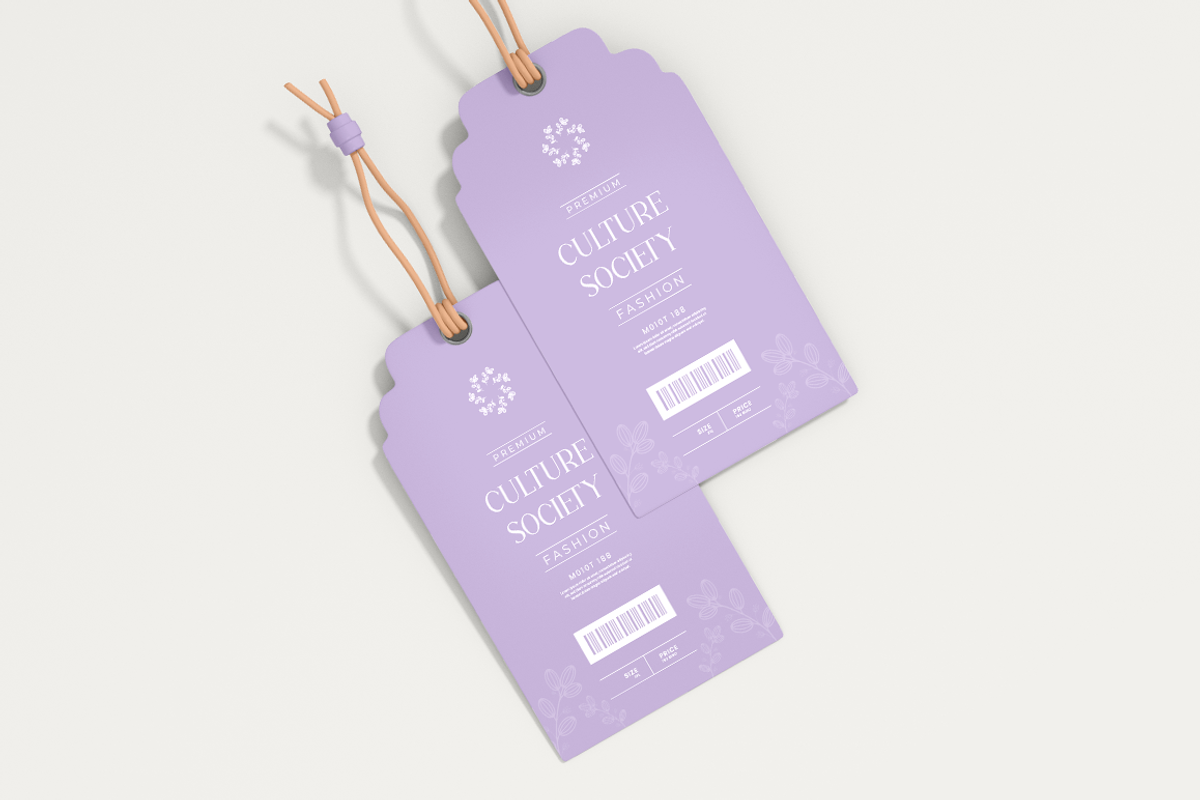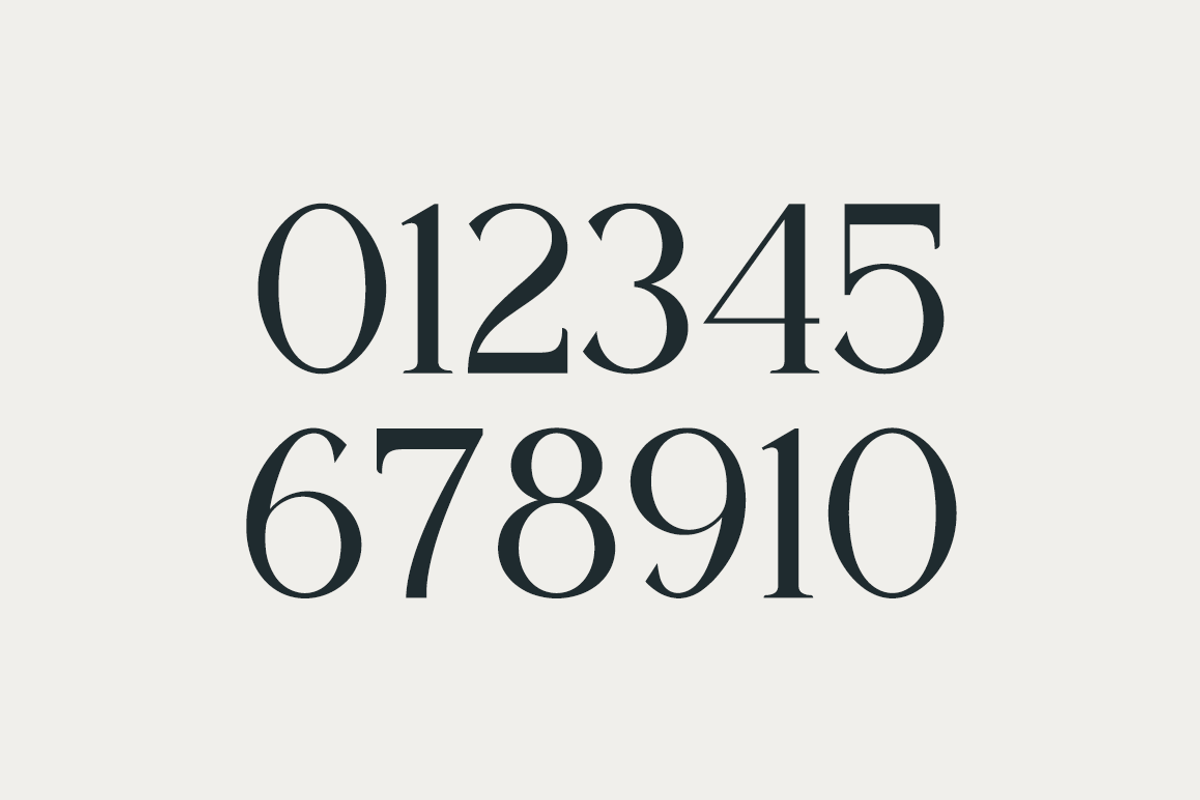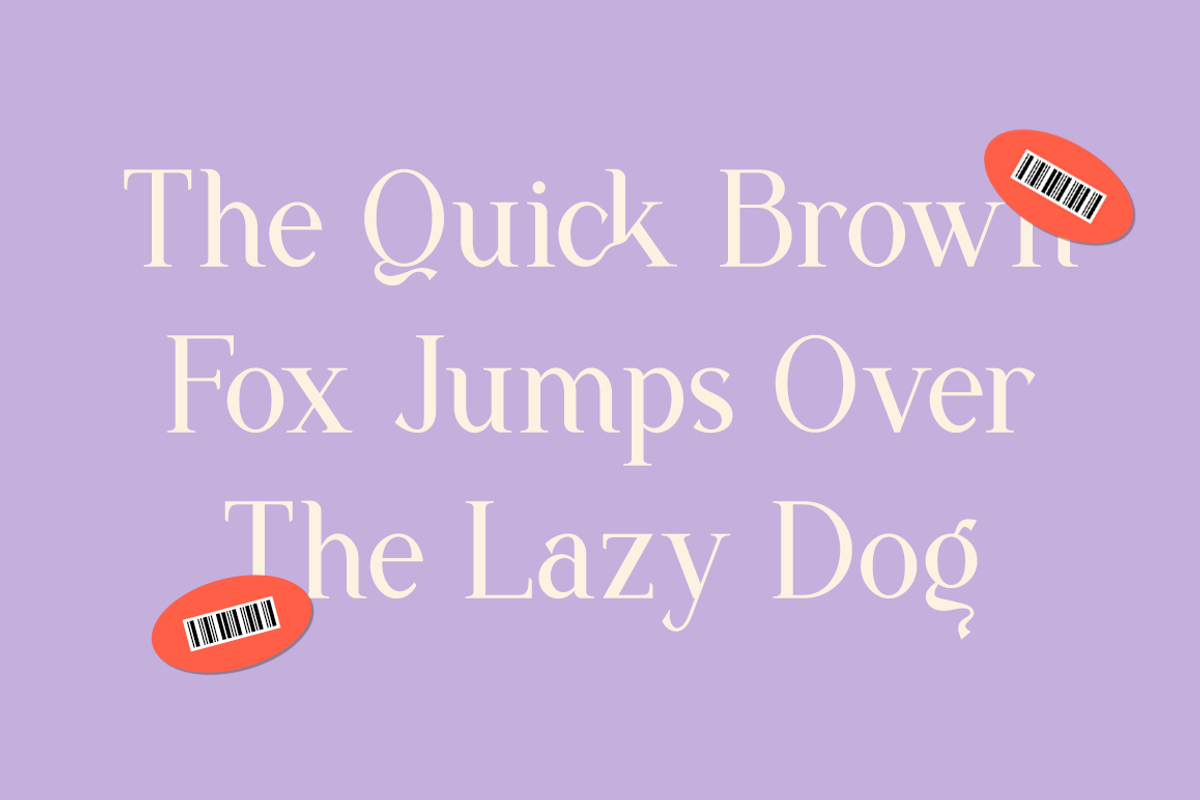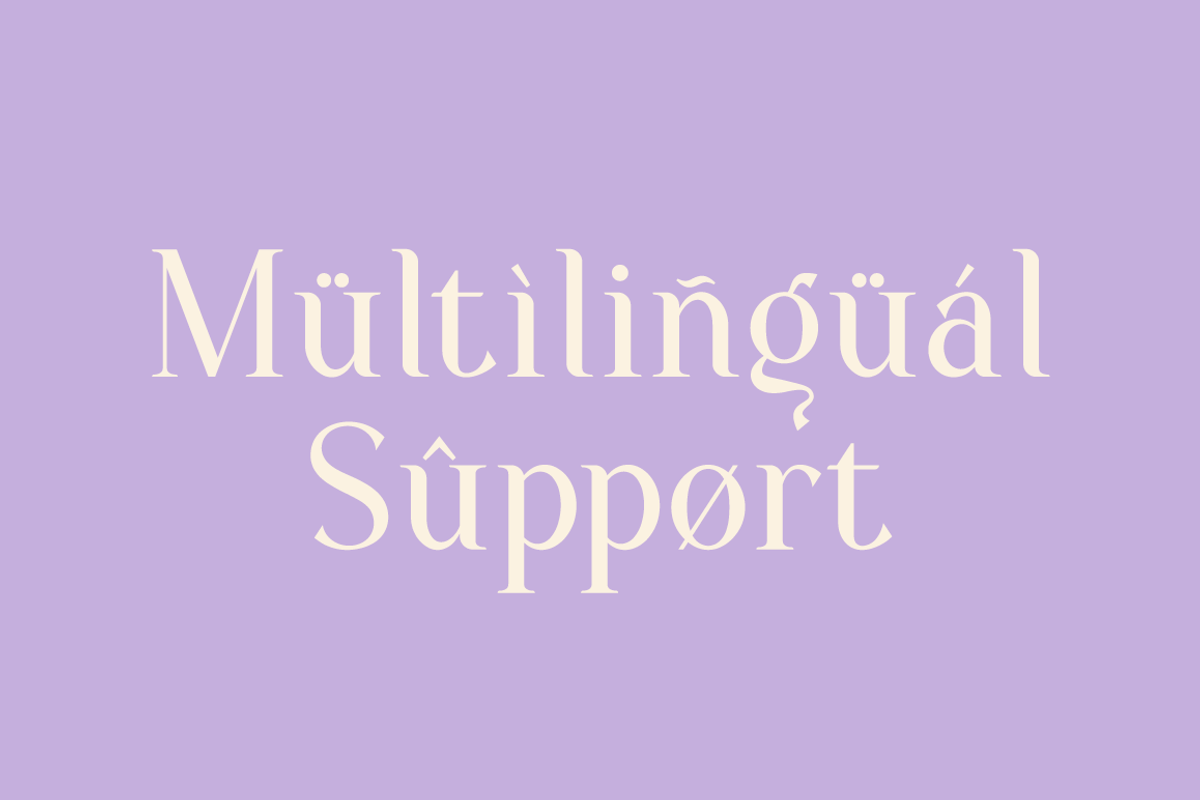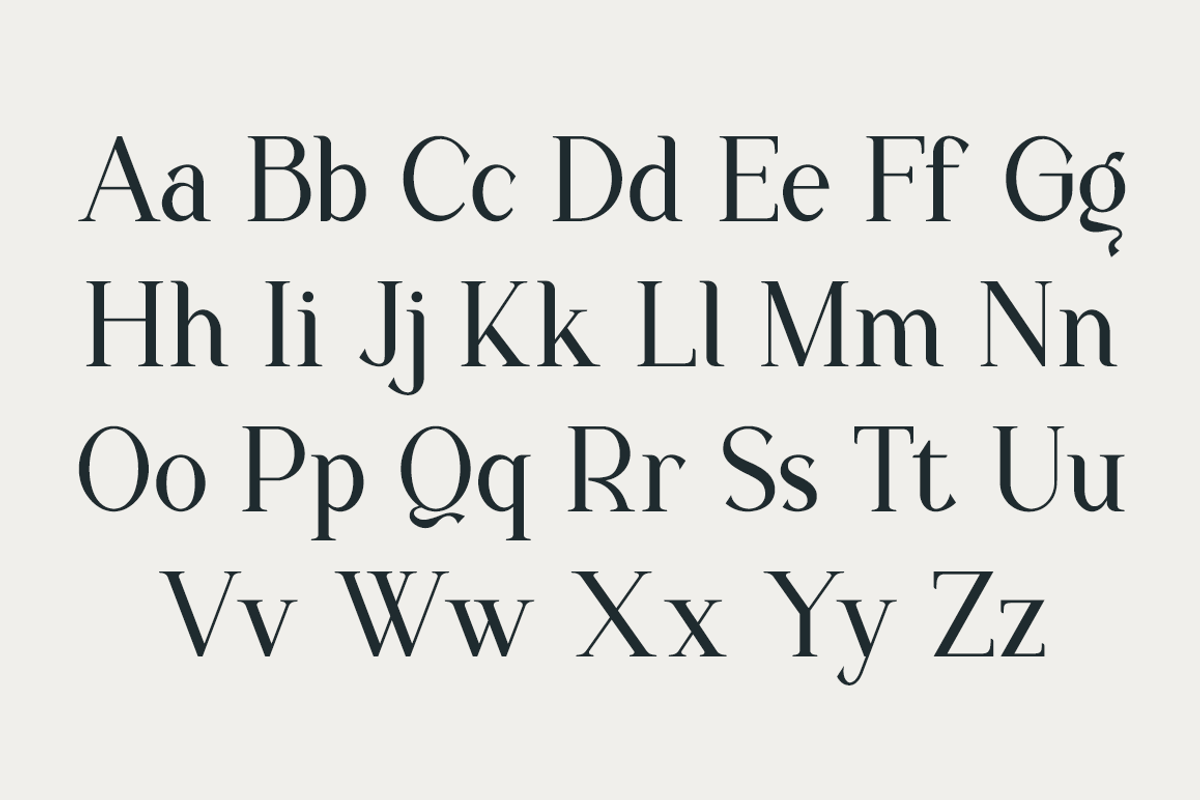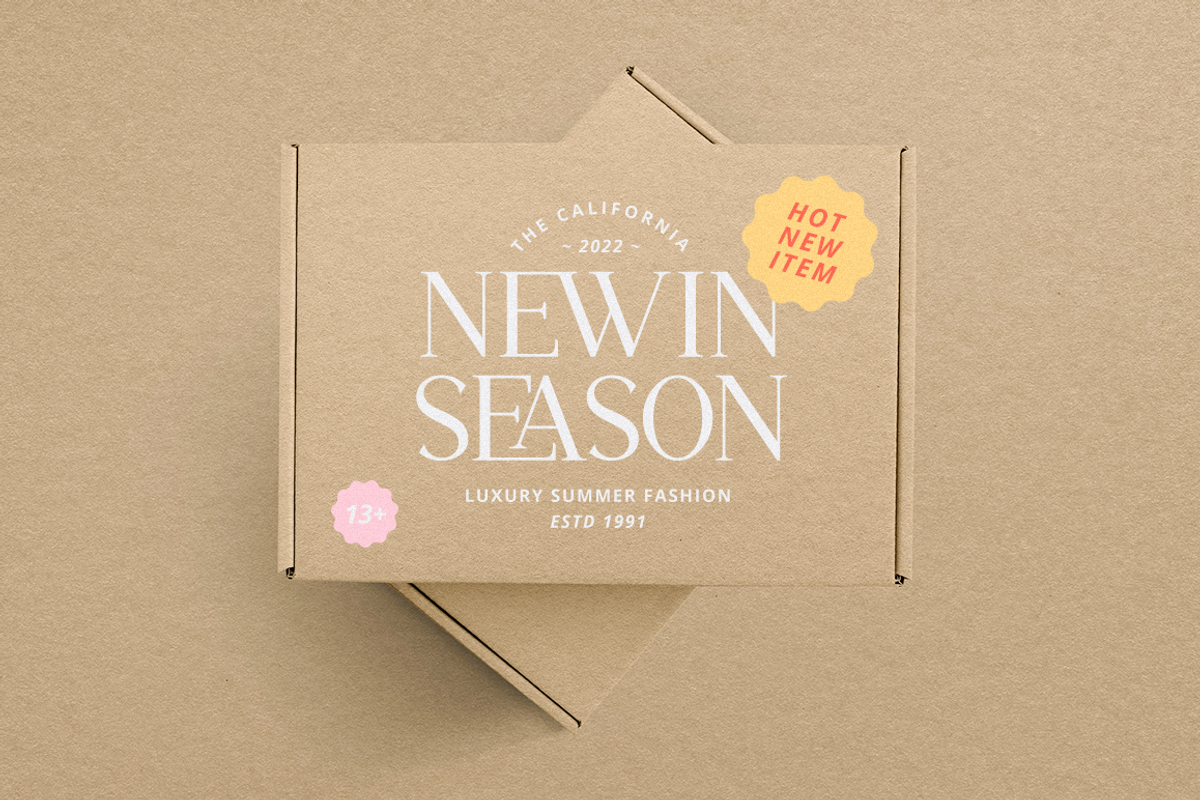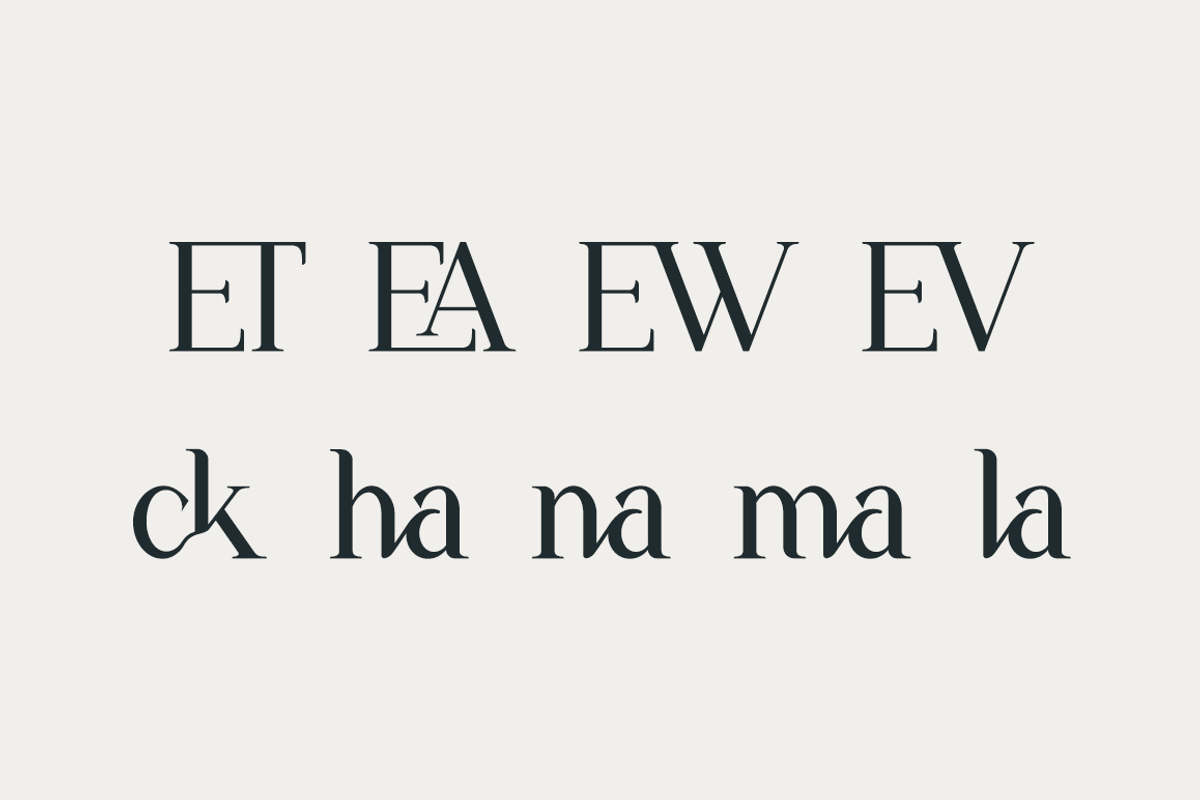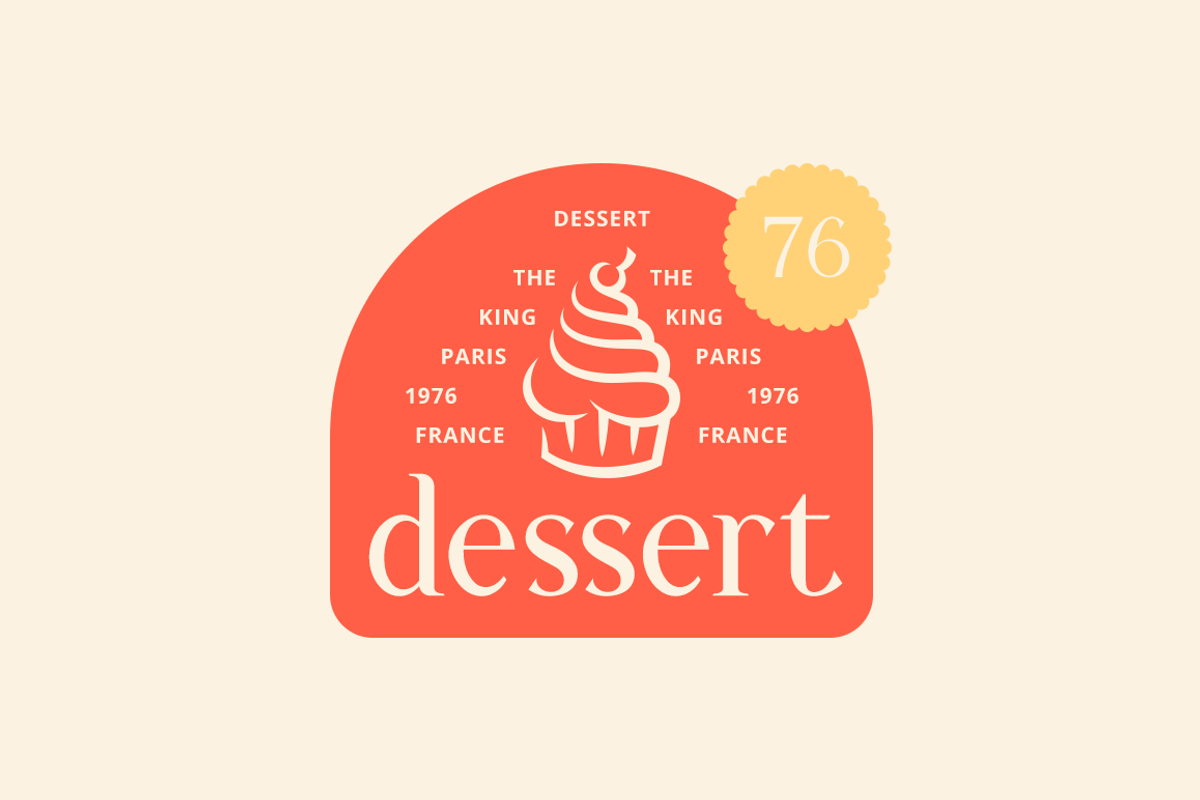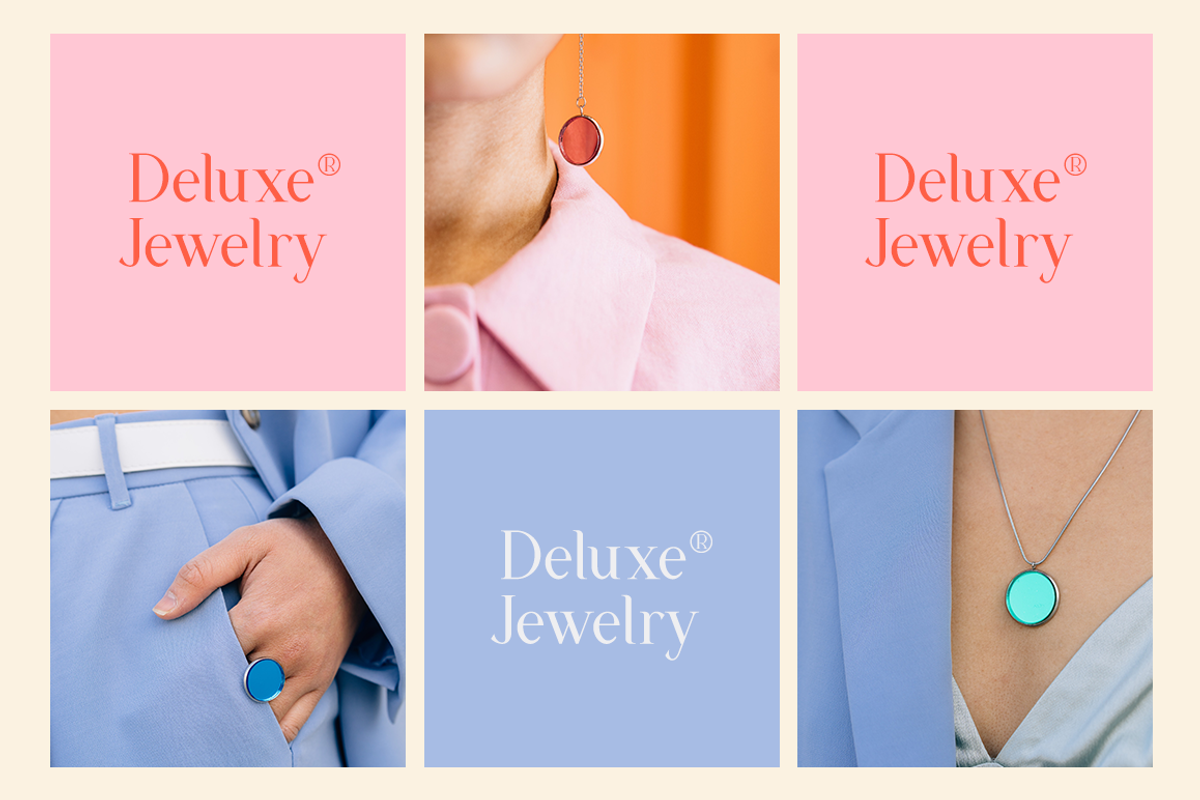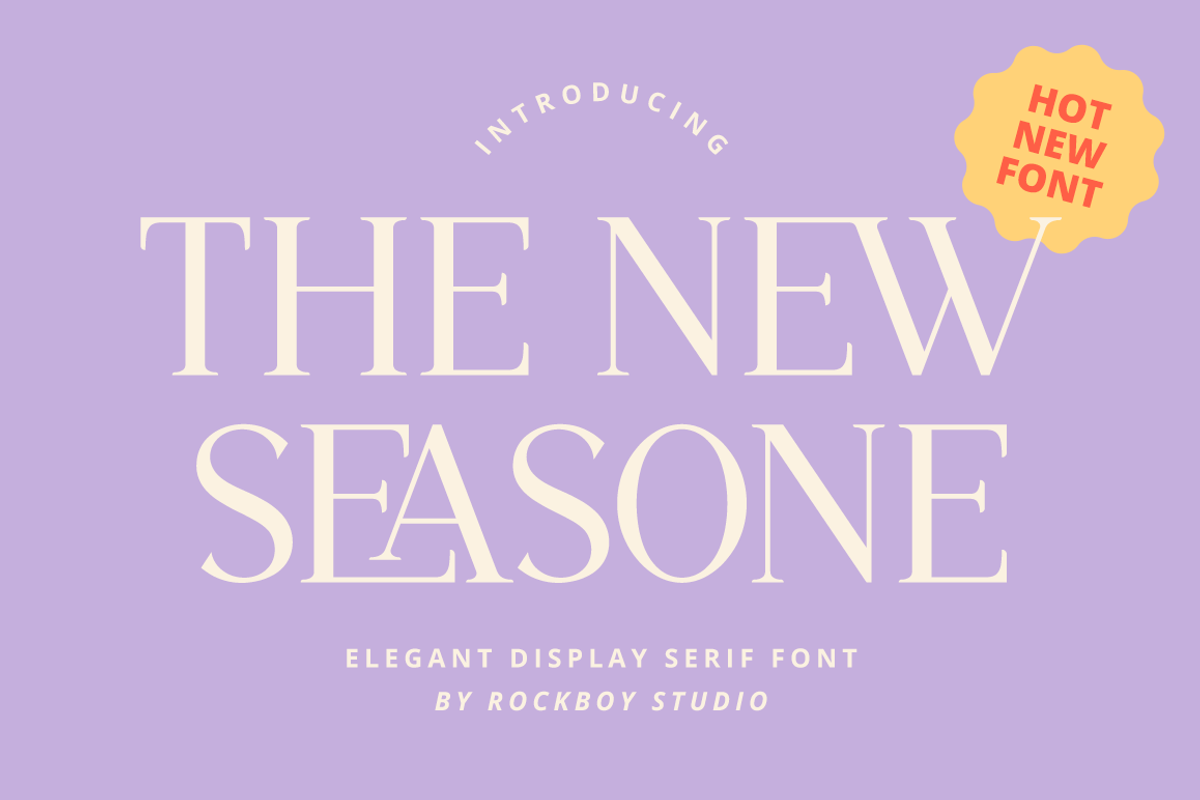
The New Seasone
The New Seasone is an elegant and thin lettered serif font. It maintains its classy calligraphic influences while feeling contemporary and fresh. Fall in love with it and bring your projects to the highest levels!